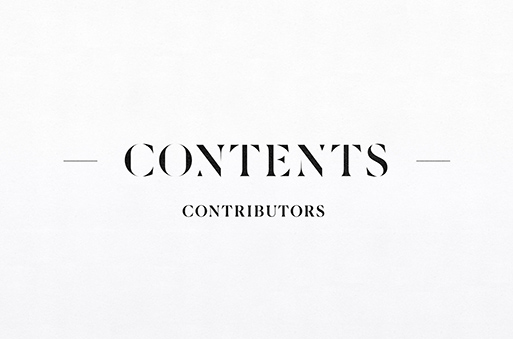
Sawdust’s bespoke type for Conde Nast Traveller is A-Class
The Houdinis of type are at it —again. Known globally for creating over-the-edge, awe infusing brand identities for numerous premium clients, (NYT, The Coca-Cola Company, Hearst, Conde Nast, ESPN, Nike, Audi, Honda, IBM to name a few), Sawdust aka Jonathan Quainton and Rob Gonzalez have presented their latest offering.
The bespoke typographic headlines for Condé Nast Traveler magazine, under the creative direction of Caleb Bennett, is without question sleek, as is anything related to the magazine for the globetrotter in the know.